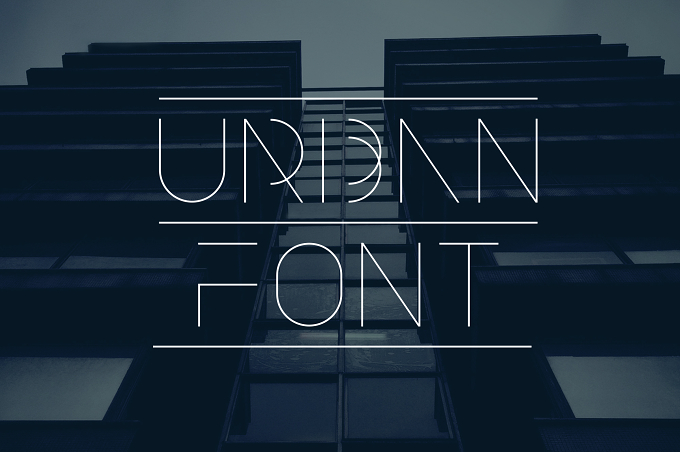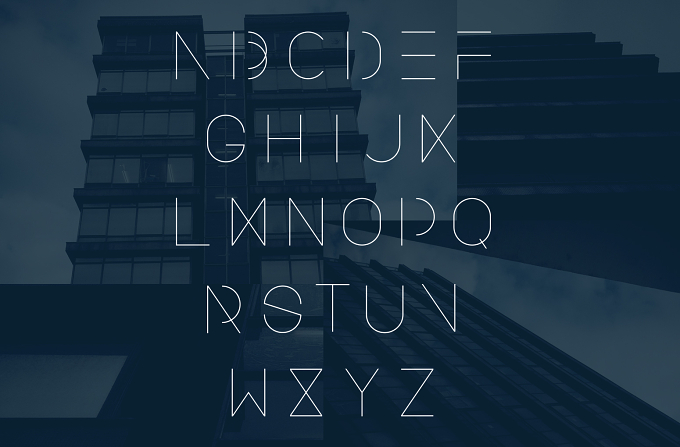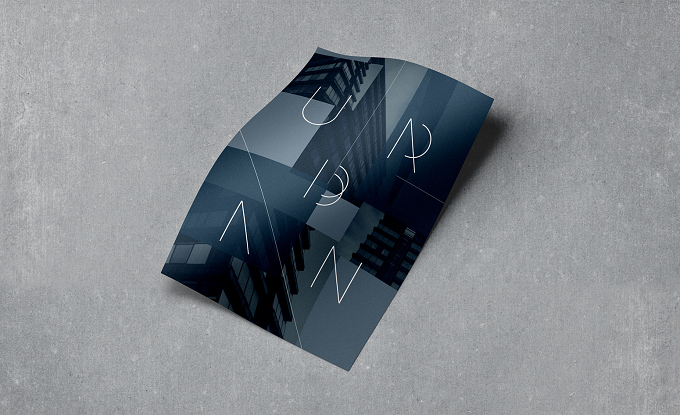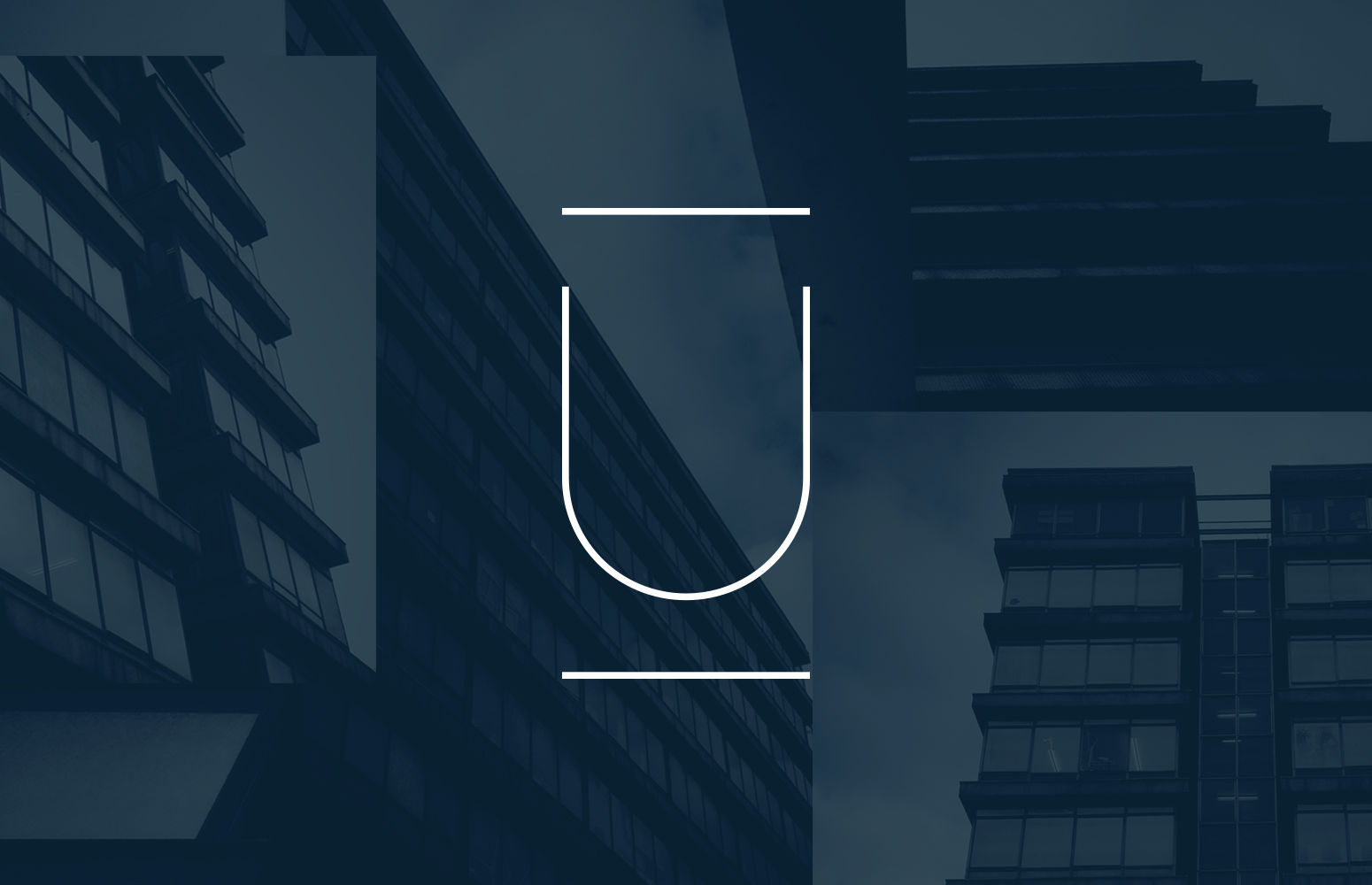
Urban is an uppercase typeface inspired by the urban architecture environment in London. The structure of the typeface has strict lines derived from the shape of the old concrete buildings, while the balanced proportions are inspired by the mathematical approach to the architecture.